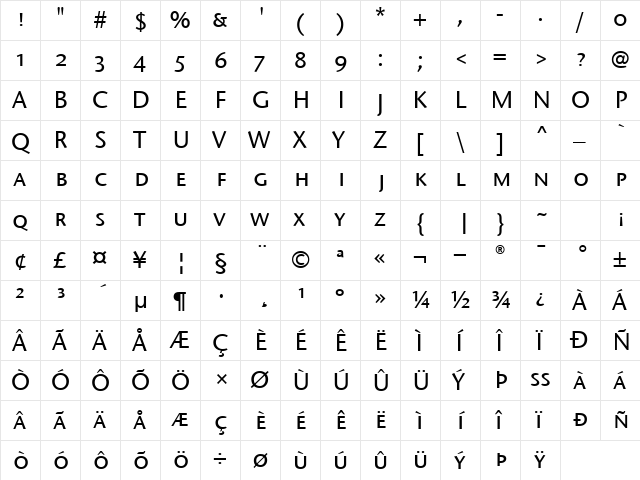
Stone Sans SC ITC TT Medium Font Preview
Stone Sans SC ITC TT Medium
Design Context for Stone Sans SC ITC TT Typeface
Stone Sans SC ITC TT offers clean, dependable letterforms without strong stylistic allegiance, making it a practical choice for designers who need flexibility.